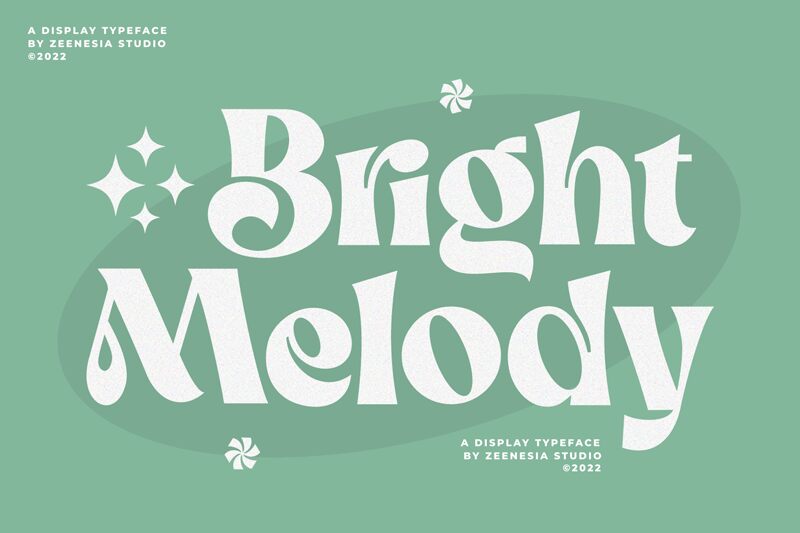
Bright Melody, a vintage serif font designed by Zeenesia Studio, is the perfect addition to any project in need of a bold and classic touch. Its unique style and thick strokes exude confidence and sophistication, making it suitable for various projects such as branding materials, product packaging, editorial designs and even wedding invitations. With its timeless appeal, this semi-bold typeface can elevate your designs to the next level. Whether you're looking to create a retro feel or add some elegance to your work, Bright Melody is the perfect choice for any project that requires a touch of vintage charm.